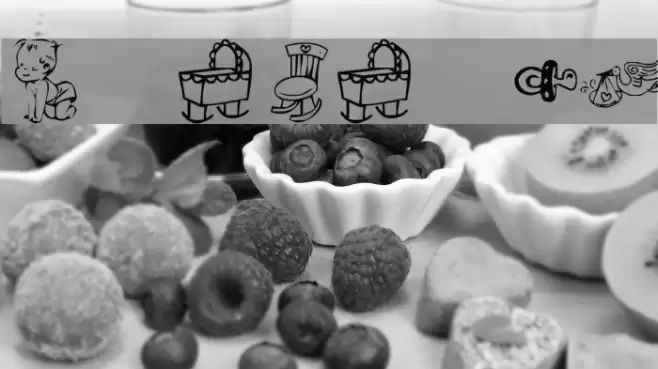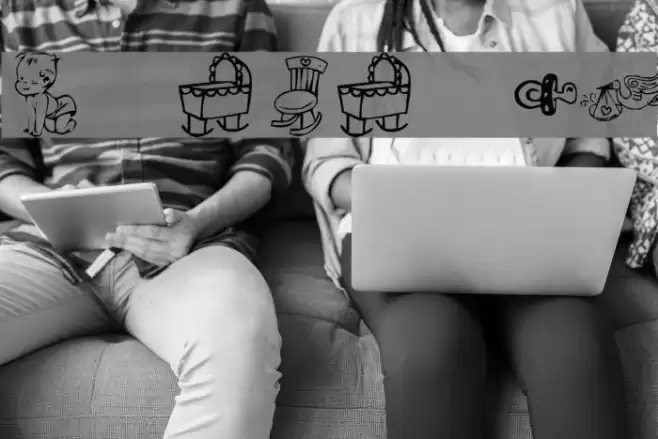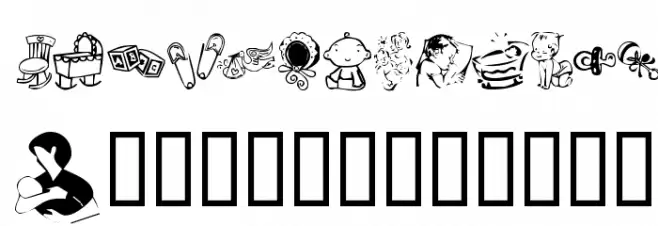
KR Baby Love Font
KR Baby Love Description
A decorative dingbat font featuring playful, hand-drawn illustrations of baby-related objects and scenes, such as cribs, bottles, pacifiers, and parent-child figures, rendered in a cartoonish, outlined style.
- Proposed Projects: Baby shower invitations, nursery decor, children's party materials, scrapbooking, parenting blogs.
- Overall Style: Decorative, Playful, Hand-drawn
- Use Case: Decorative elements, Themed graphics, Invitations